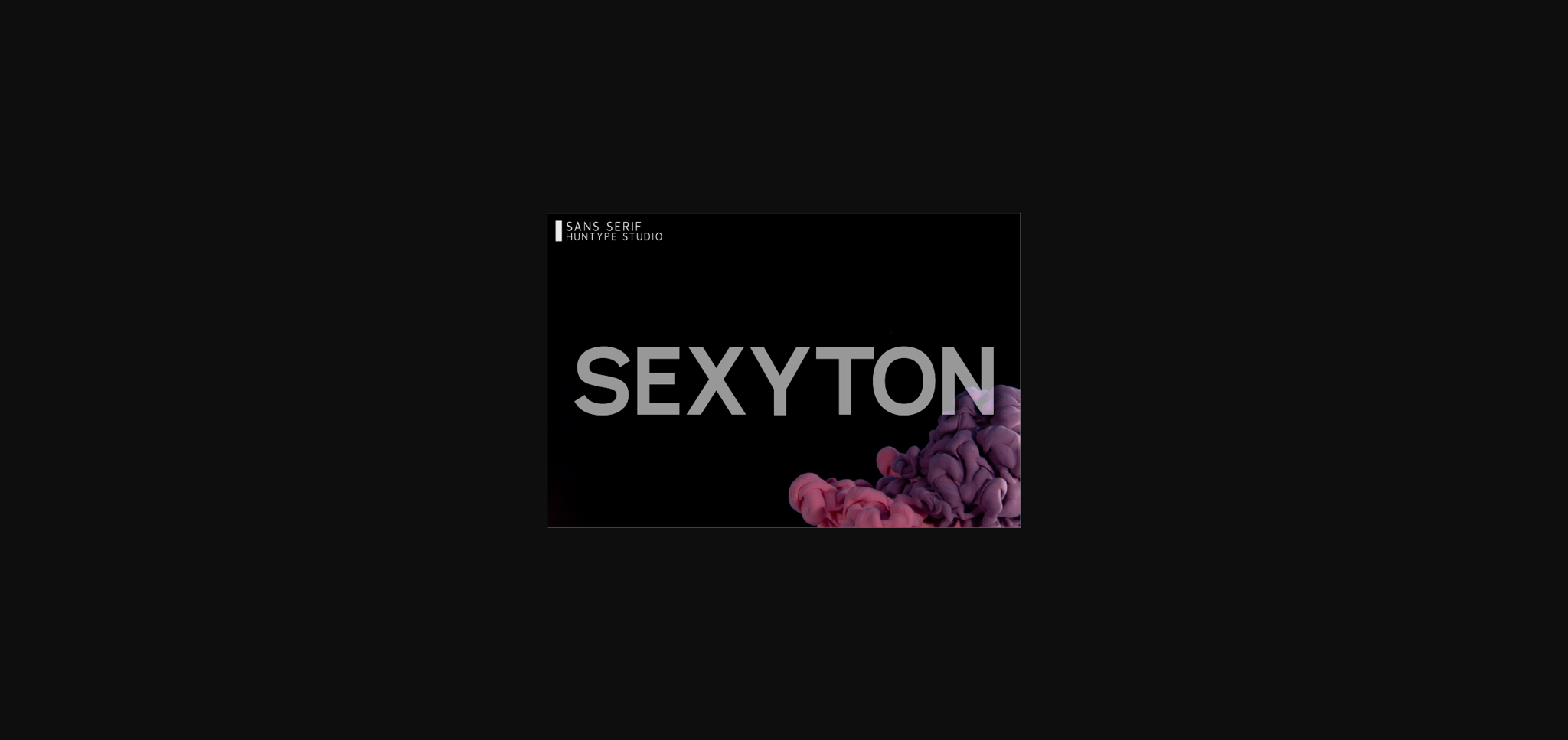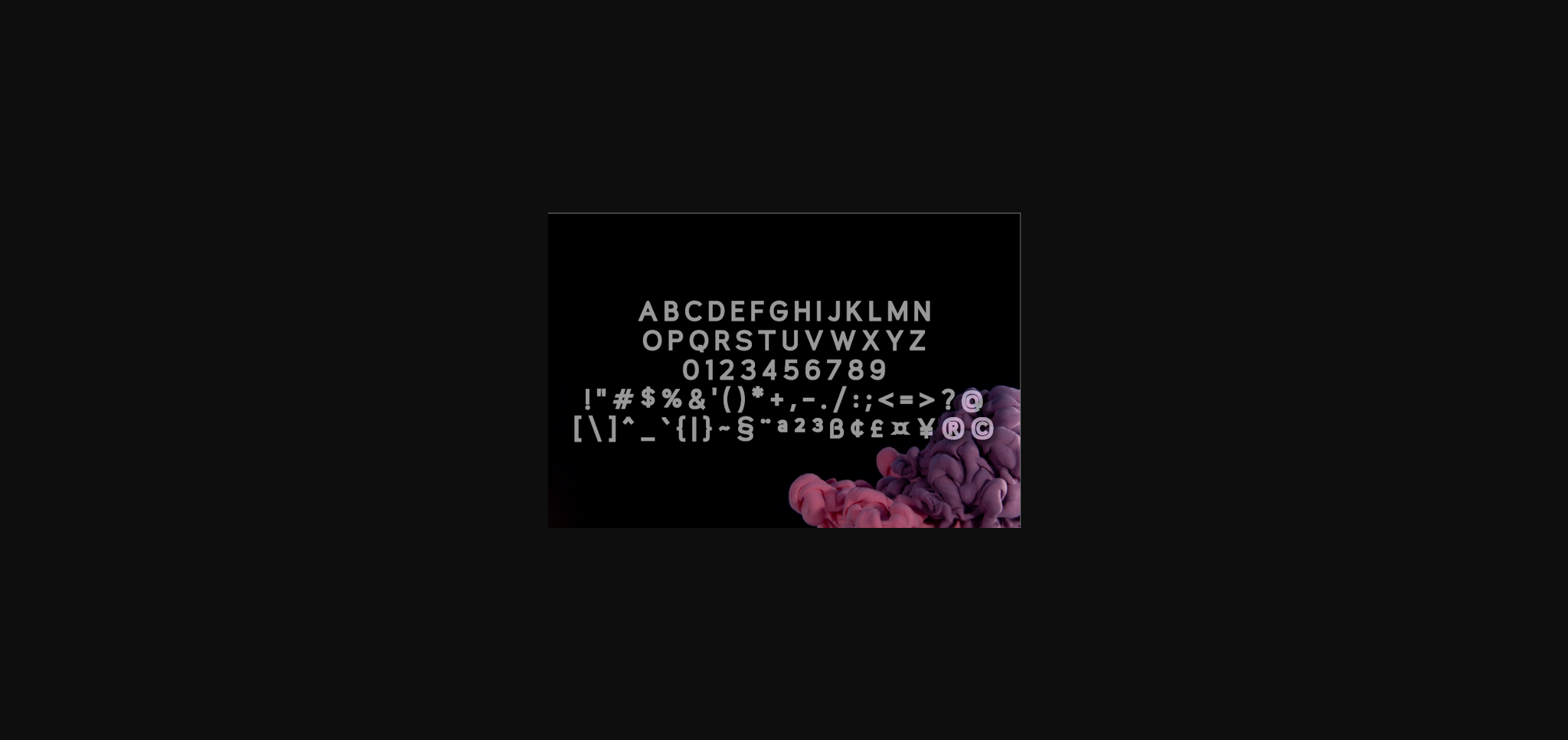
Sexyton Font
About Sexyton Font
Sexyton is an elegant and modern sans serif font. It will complement any design need perfectly with its perfectly balanced mix of the smooth and sharp!